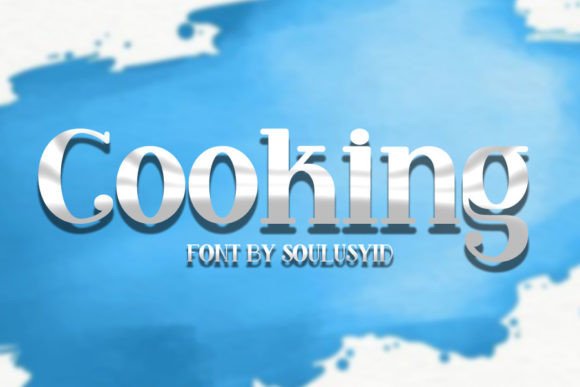
The Perfect Recipe: Discovering the Elegance of Cooking Font
I’ll never forget the time I was working on a luxury brand project, tasked with creating a sophisticated label design. As I scrolled through font after font, nothing seemed to capture the essence of refinement and elegance I was looking for. That was until I stumbled upon Cooking Font, a beautifully crafted modern serif font that instantly elevated my design. In this article, I’ll share my experience with Cooking Font, its features, and how to make the most of it in your designs.
An Honest Review of Cooking Font
- ✨ Elegant curves and fine details that exude sophistication
- ✅ Perfect for luxury brands, editorial design, and high-end applications
- ✅ Classic yet contemporary feel that impresses even the most discerning typography enthusiasts
- ✅ Highly legible and versatile for various design projects
While Cooking Font is an exceptional font, there are a few minor considerations to keep in mind:
- ⚠️ Limited availability of stylistic alternates, which may not offer as much flexibility for certain designs
- 🤔 May not be the best fit for body text due to its elegant, refined nature; it’s better suited for headlines and titles
The Designer Inspiration Behind Cooking Font
Cooking Font was designed with the goal of creating a sophisticated, elegant font that captures the essence of luxury and refinement. Inspired by classic serif fonts, the designer aimed to craft a modern, versatile font suitable for high-end applications. The result is a font that exudes sophistication and poise, perfect for designers seeking to elevate their typography.
Q: What makes Cooking Font suitable for luxury brands?
A: Cooking Font’s elegant curves, fine details, and classic yet contemporary feel make it an excellent choice for luxury brands seeking to convey sophistication and refinement.
Q: Can I use Cooking Font for body text?
A: While Cooking Font is highly legible, its elegant nature makes it better suited for headlines and titles. For body text, consider a more traditional serif font for optimal readability.
Q: Does Cooking Font support OpenType features?
A: Yes, Cooking Font supports OpenType features, including ligatures and stylistic alternates. Experiment with these features to add visual interest to your typography.